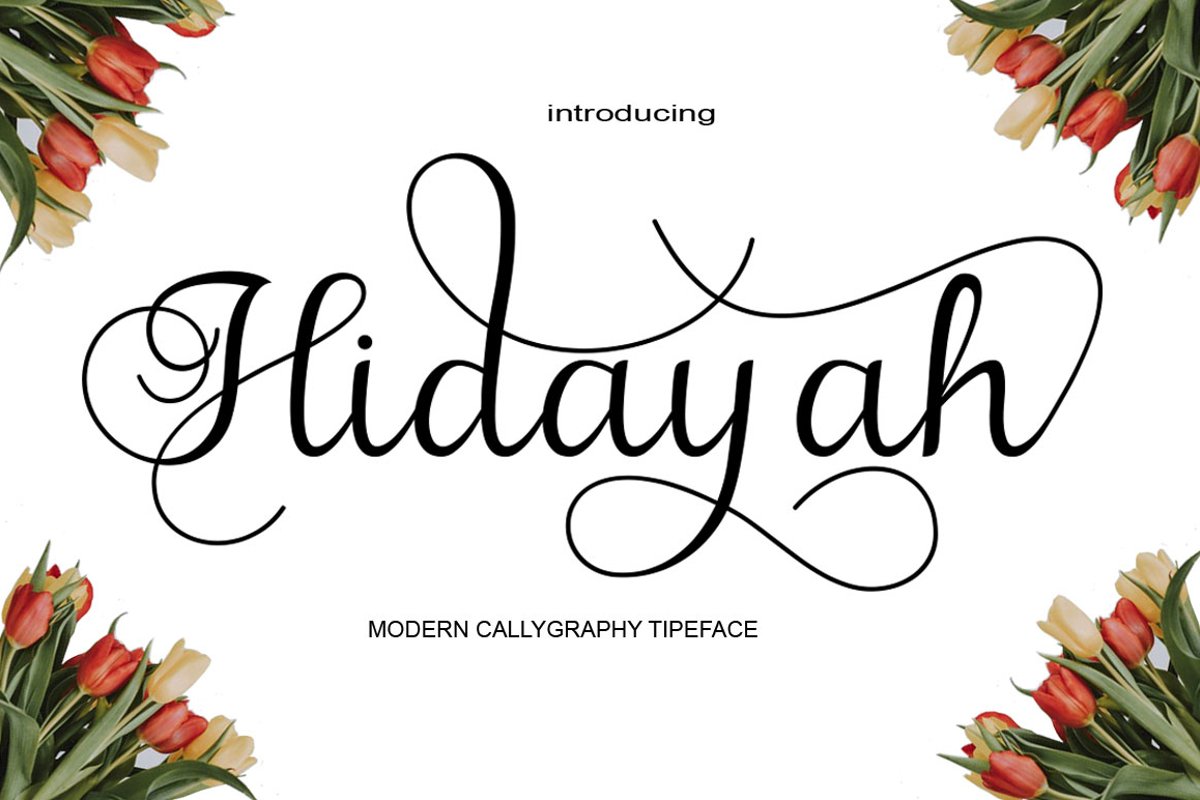
Hidayah
Introducing:
Hidayah! Sleep Less On ! Sleep Lesson!
A script font with a smooth handwritten style. Comes with 434 glyphs. Hidayah is perfect for branding projects, homeware designs, product packaging, use in name card, invitation cards, etc. Simply as a stylish text overlay to any background image or anything requiring a sprinkle of elegance.